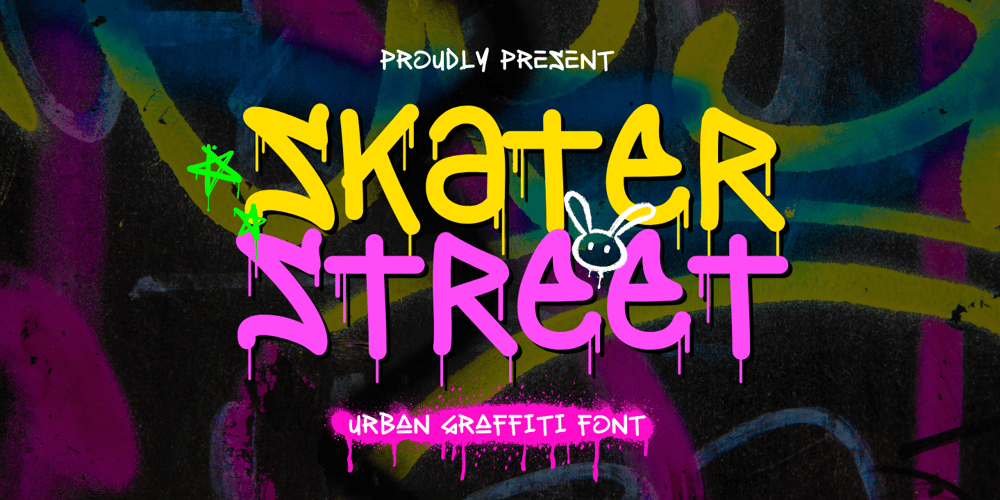
Skater Street Font Family was designed by Muhamad Yusron Billah and published by Sronstudio. Skater Street contains 2 styles and family package options. Skater Street is an urban graffiti font with a raw, street-inspired style, perfect for capturing the essence of skate culture. Its bold and edgy design adds an energetic, rebellious vibe to posters, apparel, and any urban-themed project. Skater Street brings the spirit of the streets to your designs.Included:- Regular & Clean Style- Numeral & Punctuation- PUA Encoded- Multilingual support- Simple Installation- Work both on Mac and WindowsThank you very much 🙂